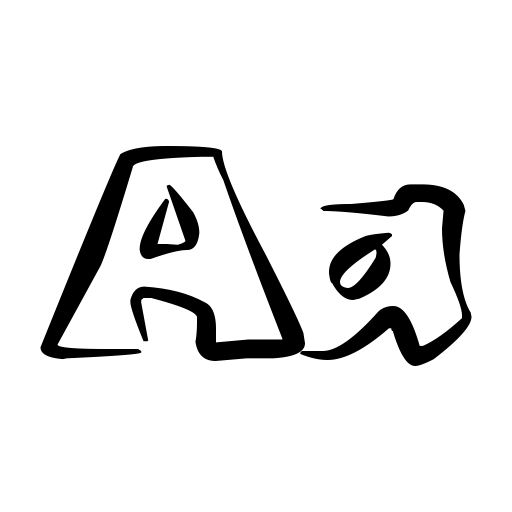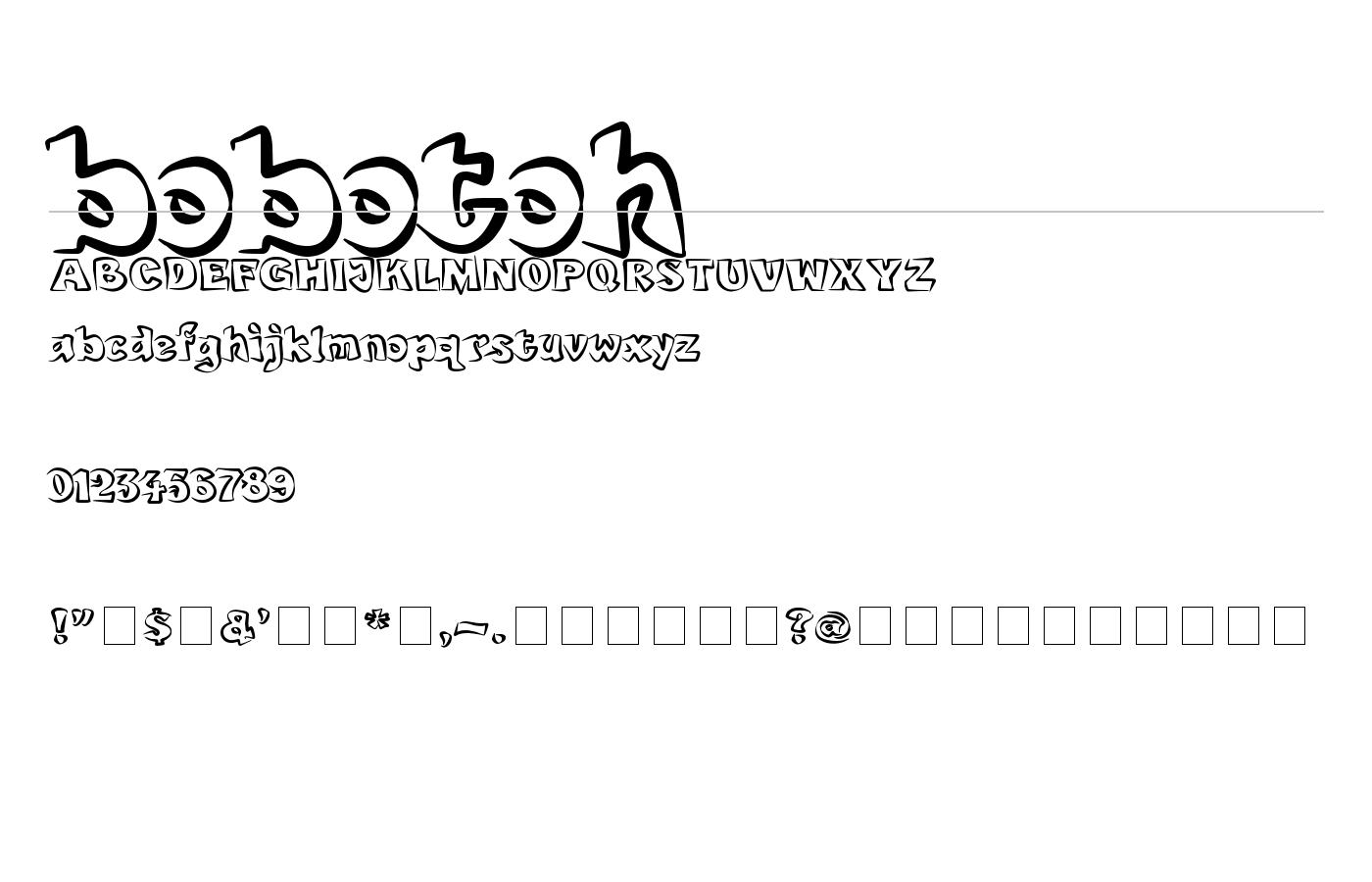
Bobotoh is a quirky, playful display font featuring irregular shapes and a hand-drawn feel, with bold, slightly condensed letterforms and a fun, informal style. Its whimsical style makes it ideal for creative, casual designs such as posters, logos, or children's branding where a lively and distinctive look is desired. Bobotoh’s unique character shapes bring energy and personality that work best in headlines or decorative text rather than body copy.
bobotoh Font
About bobotoh Font
| Font family | bobotoh Font |